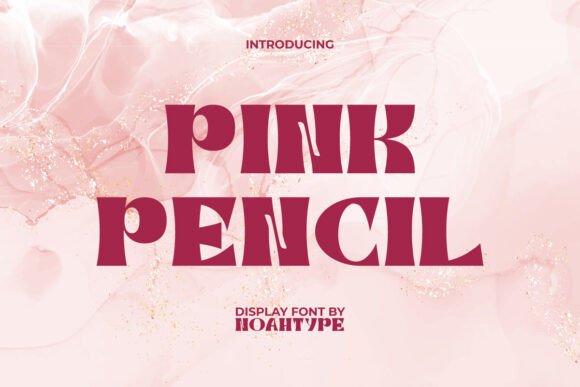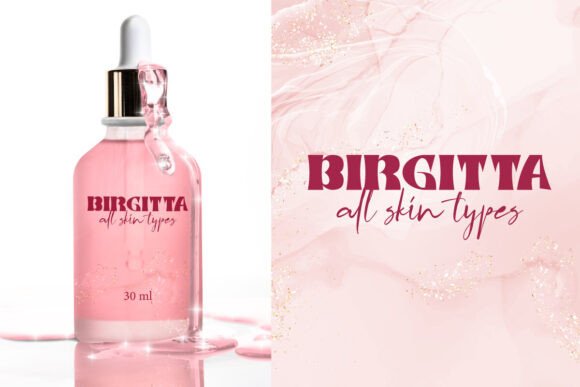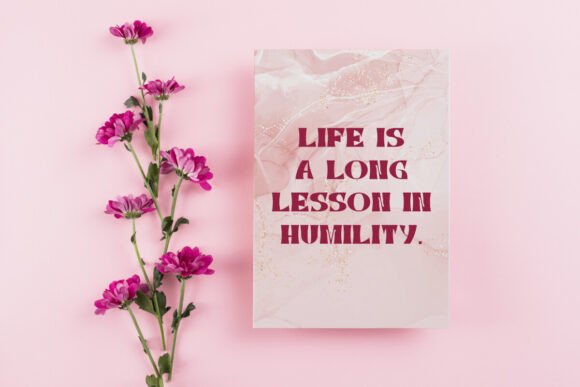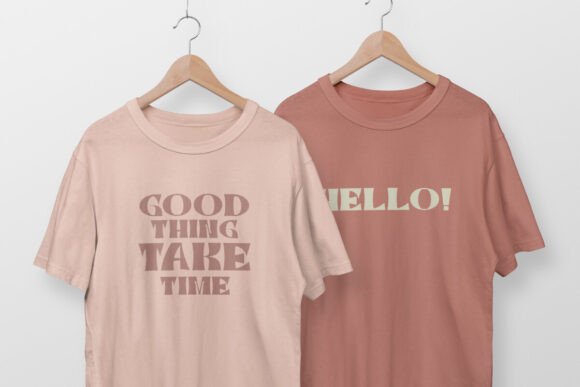
Pink Pencil Font
About the Pink Pencil Font
Make a bold statement with Pink Pencil Font, a powerful and memorable font. Pink Pencil Font is a strong eye catchy serif display font with stylish all caps letters. This font has bold letters with a attractive shape so it looks cool. It will be perfect for any designs, such as brand image, cover, custom design, invitation, label, marketing material, menu, poster, product packaging, quote, signage, stationery, web, and many more!
Pink Pencil Font’s bold, uppercase-only style makes it ideal for headlines, short impactful statements, and branding elements where strong visual presence is key. It excels in posters, signage, and packaging design, adding a touch of retro-modern flair. However, its limited character set and weight make it unsuitable for body text or lengthy passages. Avoid using it in UI designs or situations requiring high readability at small sizes.
Consider pairing Pink Pencil Font with a clean sans-serif like Open Sans for body copy or a more delicate script font like Great Vibes for a contrasting but balanced feel in projects demanding both visual impact and readability. For a bolder, more modern aesthetic, geometric sans-serif fonts such as Montserrat would create a strong visual harmony.
The overall personality of Pink Pencil Font is confident and assertive, yet stylish and approachable; it’s versatile enough for brands aiming for a retro-inspired look or a contemporary, bold image.
Pink Pencil Font Usage Examples
Pink Pencil Font Example